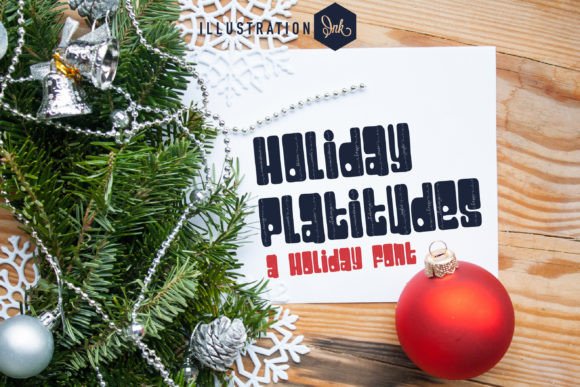
Ready to jingle your designs this season? Look no further than Holiday Platitudes Font, the groovy font that'll turn your creations into a festive wonderland!
Picture this: your invitations, greeting cards, and social media posts adorned with whimsical letters, each one a tiny burst of holiday cheer. This retro-styled, hippie font is like a cozy sweater for your words, wrapping them in warmth and a touch of naughtiness.
With Holiday Platitudes, you'll have the power to:
- Embellish your festive designs with a dash of retro flair.
- Add a touch of whimsy to your wintery creations.
- Spread holiday cheer with every letter you type.
So, why settle for ordinary when you can make your designs dance with the rhythm of Holiday Platitudes? Embrace the magic of the season and let the groovy vibes flow!